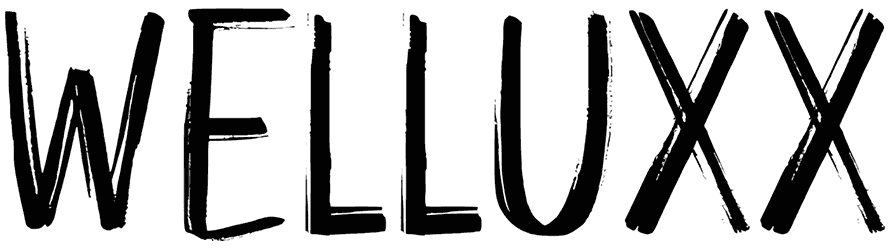
Welluxx Font
For a modern and aesthetic design, you can show your creativity by using a cool brush font. Welluxx is a handwritten font with no small-case letters. With a real face, this is one of your soundest choices to illustrate p…
For a modern and aesthetic design, you can show your creativity by using a cool brush font. Welluxx is a handwritten font with no small-case letters. With a real face, this is one of your soundest choices to illustrate projects, for instance, flyers, covers, wordmarks, and more a lot and Welluxx will work well.